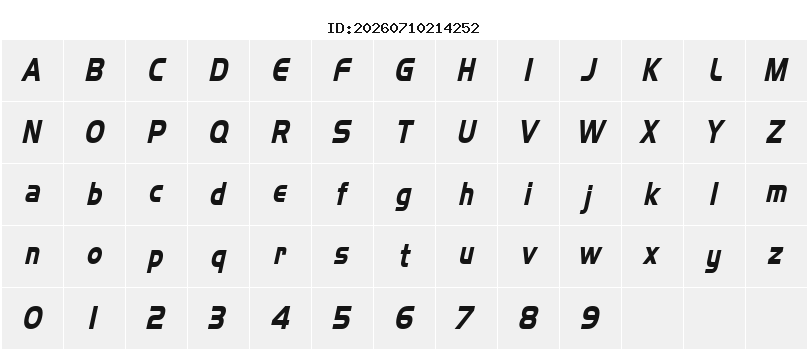
Hanzel Thin Preview
• Font Name: Hanzel Thin
• Font ID: FontMonger:Hanzel Thin Bold Italic
• Full Font Name: Hanzel Thin Bold Italic
• Version: 1.0 Wed Jul 28 16:09:40 1993
• PostScript Name: HanzelThinBoldItalic
• Character Count: 271
About Hanzel Thin.ttf
Hanzel Thin.ttf is a modern, elegant sans-serif font designed for ultimate readability and visual harmony. Perfect for branding, headlines, web design, and print materials.